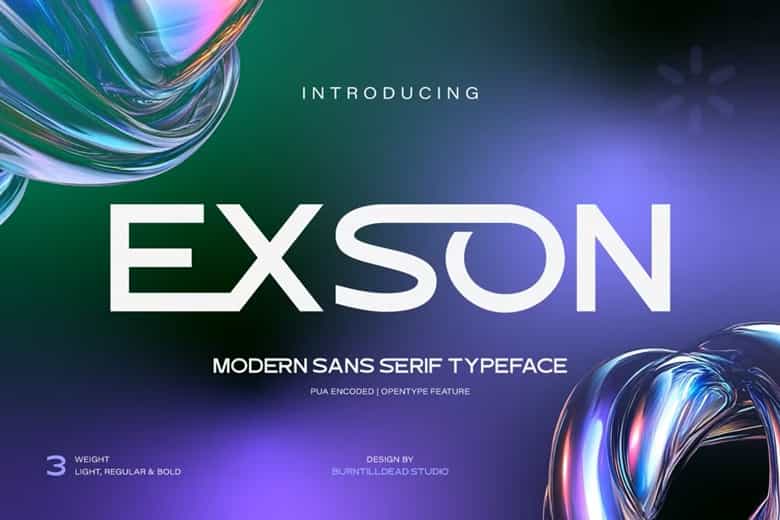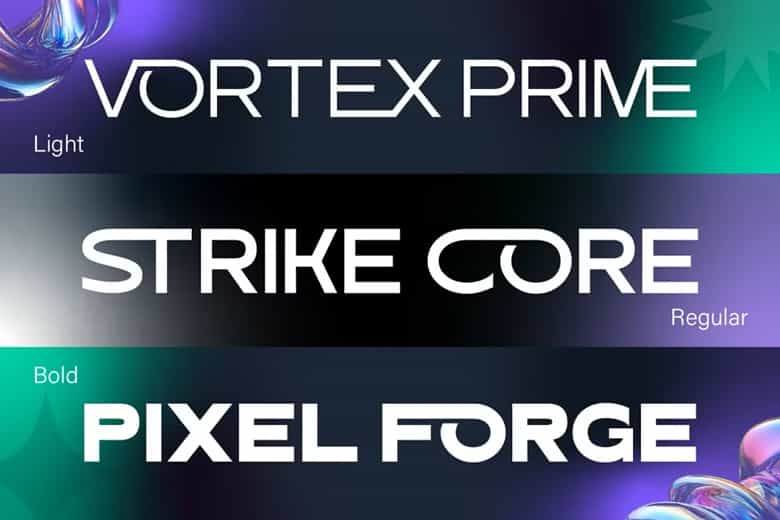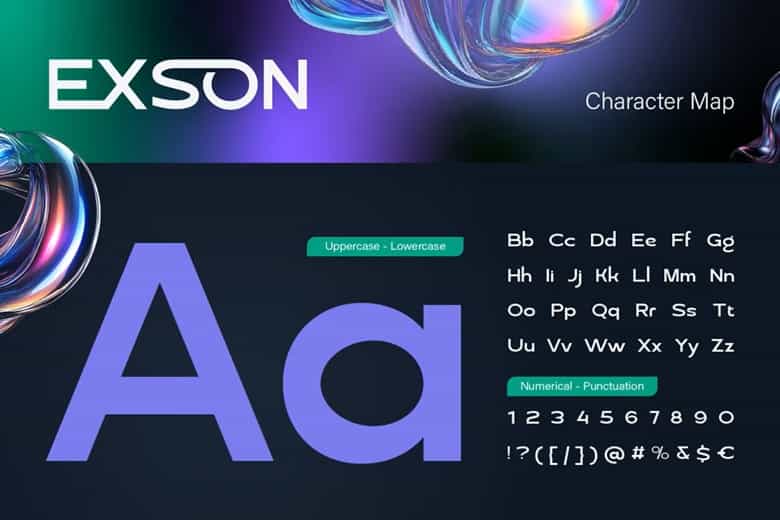
Exson is a contemporary clean sans serif font that is ideal in adding a futuristic bold touch to your works. With 3 weights (Light, Regular and Bold), Exson works equally well in display headlines as well as in body text. The result is eye catching due to its smooth curves and distinctive letterforms caused by the althernates and ligatures.